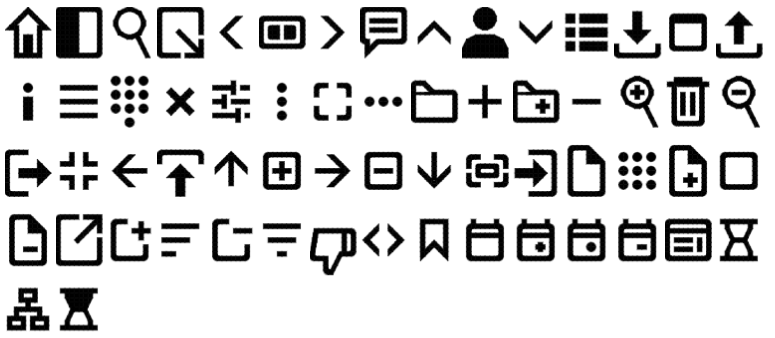
This isn't really your traditional font - something like Wingdings - like, you type images instead of characters. Additionally, this font is monospace (not that important in this case, but it helps make sure all icons take up the same space).
Full icon set:
i'd prefer that the house icon would be bigger